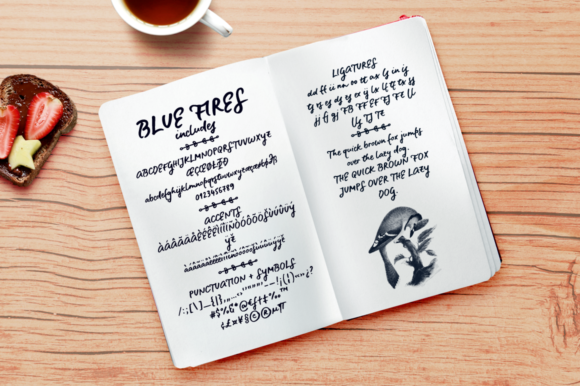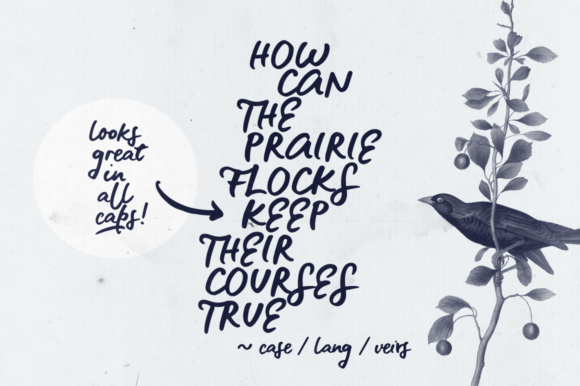
Blue Fires Font
db-ku.com - Script & Handwritten -- Blue Fires is a quick and easy handwritten font, with ligatures and bonus swashes, circles, arrows and ornaments.